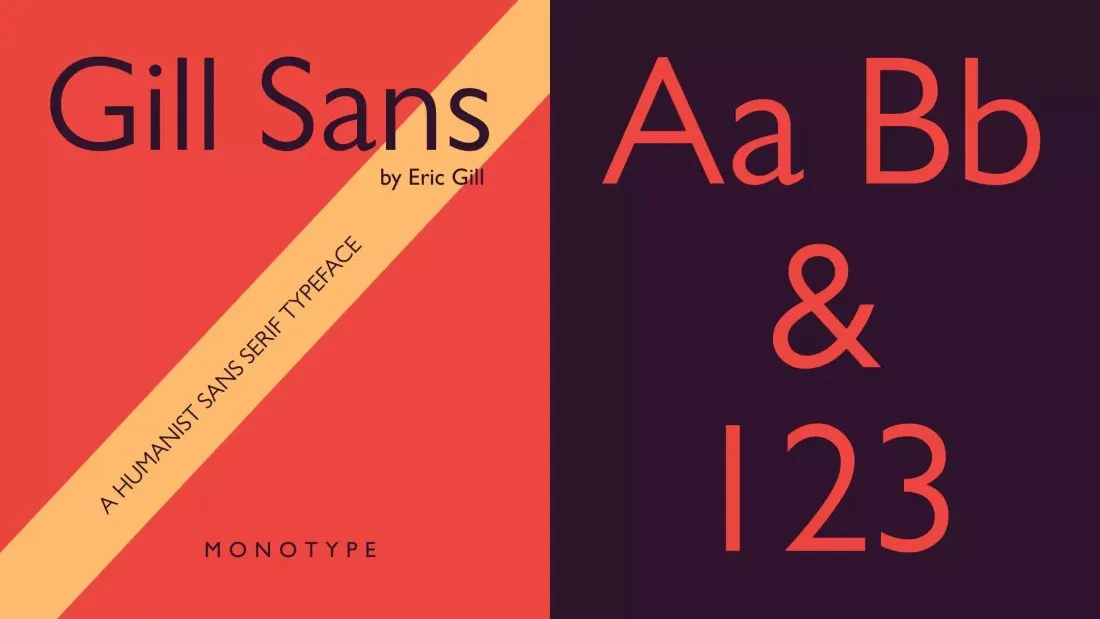
About Gill Sans Font
Gill Sans is a humanist sans serif typeface created by Eric Gill and released by Monotype. It was released by the British division of Monotype from 1928 and onwards. Gill Sans is based on Edward Johnston’s 1916 “Underground Alphabet”, the corporate font for the London Underground. You can download gill sans font right from here for your personal purposes only.
Its proportions Gill Sans stem from monumental Roman capitals in the upper case and the traditional “old-style” serif letters in the lower. This creates Gill Sans a very different style of design to geometric sans-serifs, like Futura that are founded on basic squares and circles or grotesque or “industrial” designs like Akzidenz-Grotesk, Helvetica and Univers influenced by lettering styles from the 19th century. For instance, in comparison to the grotesque sans-serifs, Gill Sans “C” and “a” have a smaller “folded up” structure, with larger openings. “A,” “g,” and “C “a” and “g” in the regular or roman styles have “double-storey” designs, rather than “single-storey” forms used in blackletter and handwriting, which are commonly found in geometric and grotesque sans-serifs.
Gill Sans rapidly became very well-known. The success of Gill Sans was made possible by Monotype’s clever marketing driven by Gill’s loyal supporter (and often love interest) Beatrice Warde, and due to its utility and accessibility for machines in a wide variety of weights and sizes. After the initial popularity in Gill Sans, Monotype rapidly came up with a range of alternative designs. Monotype created a collection of characters that were not available for Gill Sans to cater for different preferences and styles of printing of various nations. They include Futura-inspired characters that include “N”, “M”, “R”, “a”, “g”, “t” and others, an all-capital “W” in the French Renaissance style, a tinier “R”, a “Q” that was designed in the 19th century with the tail looping upwards (similar to that on Century among other characters, and also preferred to the LNER) and oblique designs in contrast to the traditional true italic font, a curvier and true-italic “e” and several alternative numerals. So without wasting time hit the Gill Sans Font Download Button below and use it on your design (Personal Purpose).
Usage Of Gill Sans Font
Gill sans alphabet has a classic in proportion. It’s described as being a sans serif that is humanist making it extremely accessible and ideal for use in display, which is why it’s better than other sans serif typefaces to set text bodies.
Gill’s lettering is based on the classic Roman proportions, which give the sans-serif less mechanical look as its geometric cousins. It was initially suggested for headlines and advertising however as the general public began to get used to reading sans-serif type, Gill Sans was found to be equally effective to be used for text in body.
Fonts Similar to Gill Sans
Font Combination
Gill Sans is a sans-serif font. It works well together with Chronicle, PMN Caecilia, Montserrat, Didot, Bodoni, Minion, Adobe Garamond, Northwell, Futura and Trebuchet MS. In the picture above I have shown the combination of Gill Sans and Montserrat. In this case we have used gill Sans as the heading font and Montserrat as the small text.
What font is closest to Gill Sans?
Humanist 521, Rowton, Semplicita, Coves and many more fonts are closest to Gill Sans.
Is Gill Sans an Adobe font?
Gill Sans MT, Gill Sans – the old Type 1, Gill Sans Std – the OpenType CFF version are currently distributed by Adobe.